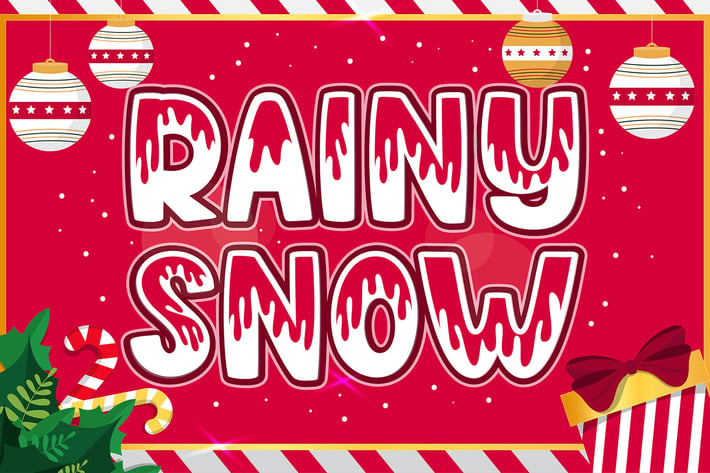
Rany Snow - Display Font
Rany Snow is a Display font. This font can be used for various purposes, including for invitations, weddings, birthdays, fashion, products, feminine, beauty, salon, product packaging, quotes, product designs, crafters, labels, photography, watermarks, t-shirts, logos & branding. Everything can be accessed using software that supports Opentype, such as Adobe Indesign, Adobe CS Illustrator, Adobe Photoshop CC, and Corel Draw.